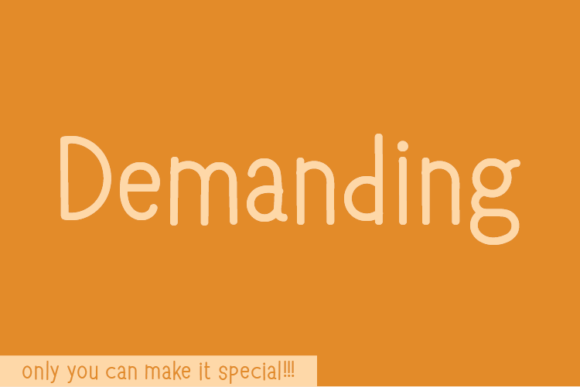
Prepare to be captivated by Demanding, a script font family that embodies the essence of artistry and individuality. Inspired by the world of tattoos, Demanding emerges as a true masterpiece, meticulously handcrafted by the talented artist, Hanna Bie. This extraordinary font is a testament to Hanna's dedication to preserving the natural flow and beauty of handwritten strokes, resulting in a truly authentic and captivating design.
Step into a realm where your creativity knows no bounds. Demanding beckons you to unleash your imagination, inviting you to express yourself with a font that speaks volumes. Whether you're designing quotes that resonate with your soul, crafting heartfelt notes, creating eye-catching t-shirts, or embarking on any product design journey, Demanding is your perfect companion. Its versatile nature effortlessly adapts to a myriad of styles and projects, allowing you to make a statement that is uniquely yours.
Experience the allure of Demanding's intricate details, where each character is meticulously shaped without altering a single node in its indentation. This unique approach grants Demanding an unmatched charm and allure, setting it apart from the ordinary. Prepare to be mesmerized as your designs come to life with an authenticity that is second to none.
Immerse yourself in the world of Demanding and discover a font that captures the essence of free-flowing expression. Its natural handwritten aesthetic adds a touch of raw emotion to your creations, evoking a sense of connection and authenticity that resonates with your audience. Let Demanding become your creative muse, inspiring you to craft designs that leave an indelible mark on the hearts of those who encounter them.
Say goodbye to the mundane and embrace the extraordinary with Demanding, the script font that ignites your passion for design. Unlock a new realm of possibilities and elevate your projects to new heights. Experience the magic of Demanding today and witness the transformation of your creative vision into a stunning reality.